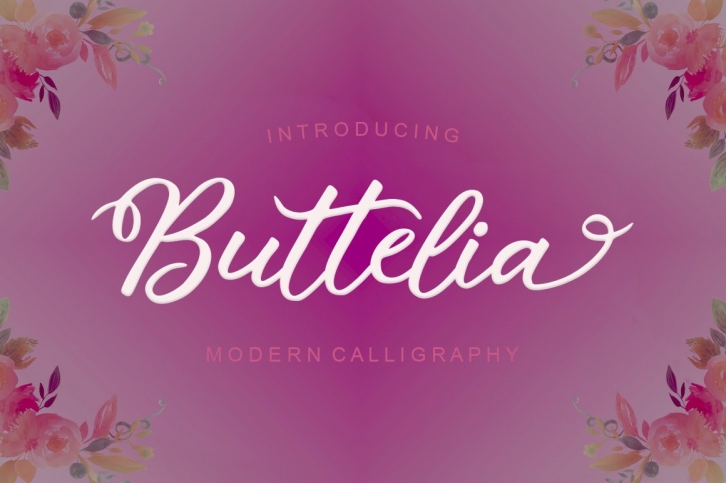
Buttelia FONT Download
Buttelia is a gorgeous font that was realeased on September 25, 2020. The font can be used in many style contexts and design environments. Perfect for invitations, magazines, websites, logos, and more! It was designed by Stripes Studio and the file size is 6.61 MB. Thanks for checking out this font!